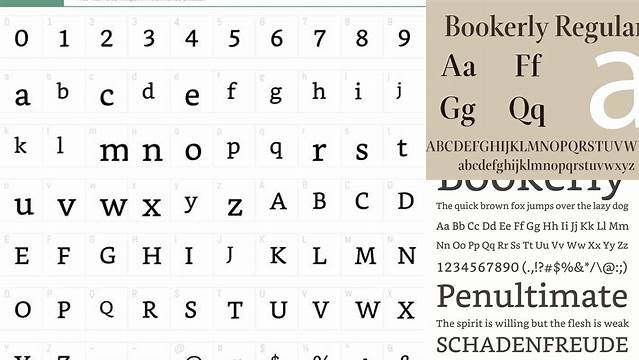
Bookerly Font, a typeface designed for optimal readability, especially for extended reading, has gained significant popularity among readers. This comprehensive guide provides everything you need to know about the Bookerly TTF font, including its history, features, how to download it for free, and its diverse applications. Whether you're a designer, writer, or simply a font enthusiast, this article will equip you with the knowledge to utilize Bookerly effectively. We'll delve into why Bookerly is a preferred choice, explore its design characteristics, and guide you through the process of obtaining and installing this versatile font on your devices. So, if you're looking to enhance your reading experience or create visually appealing content, stick around. Let’s dive in!
What is the Bookerly Font?
Bookerly is a custom typeface created by Dalton Maag and initially used by Amazon for its Kindle devices. The primary goal behind its design was to create a font optimized for readability on screens, mimicking the comfortable feel of reading a physical book. The design of Bookerly prioritizes clarity, legibility, and an enjoyable reading experience. This font is particularly well-suited for long-form text, making it a favorite among ebook readers, bloggers, and anyone who values a seamless reading flow. The curves, spacing, and overall design of Bookerly are carefully crafted to reduce eye strain, ensuring readers can immerse themselves in the content without unnecessary visual fatigue. This focus on the user experience sets Bookerly apart from many other fonts, making it a standout choice for digital reading platforms and various print materials. When we look at the specifics, you’ll find the typeface’s character set is designed to provide excellent clarity at smaller sizes, which is crucial for displaying text on the small screens of e-readers and mobile devices. Moreover, the font’s weight and proportions are carefully balanced to enhance readability across a range of screen resolutions and print qualities. This attention to detail is a testament to the thoughtfulness that went into creating Bookerly, resulting in a font that not only looks good but also significantly enhances the reading experience. For those of us spending hours reading on screens, this is a real game-changer!
Design Characteristics and Features
Bookerly's design incorporates several key features that contribute to its exceptional readability. Firstly, the font features a generous x-height, meaning the lowercase letters are relatively tall compared to the uppercase letters. This design characteristic makes the characters more distinguishable, particularly in smaller sizes, reducing the chances of misreading words. Secondly, the typeface boasts open apertures, referring to the open spaces within and between the strokes of the letters. These open spaces improve letter recognition and prevent the characters from appearing cramped or blurred, especially when viewed on digital screens. Additionally, the font's subtle serifs, the small decorative strokes at the ends of the letters, enhance the visual flow of text, guiding the reader's eye smoothly across the page. The curves are elegantly designed to add a touch of sophistication while ensuring that the font remains highly legible. The design’s attention to detail, from the balance of its stroke weights to the spacing between letters, is all geared towards optimizing the reading experience. The features also include a variety of weights and styles, offering versatility for different uses. Whether you're creating a document, designing a website, or crafting an e-book, Bookerly provides the flexibility to meet your needs. From bold headlines to regular body text, Bookerly can adapt to any use, all while preserving its core characteristics of readability and visual appeal. This adaptability is what makes it an ideal choice for so many applications.
Why Choose Bookerly?
Choosing Bookerly offers several advantages, making it a preferred choice for both digital and print media. The primary benefit is its superior readability, which is especially crucial for extended reading sessions. The design reduces eye strain, making it an excellent choice for ebooks, articles, and any content where readers spend considerable time. Furthermore, its clean, modern aesthetic adds a touch of elegance to any project. The balanced design ensures that text appears professional and visually appealing without being overly distracting. The versatility of Bookerly also allows it to be used in various applications, from websites and documents to marketing materials and branding. It’s suitable for both body text and headlines, making it a versatile asset in any designer’s toolkit. The font’s ability to adapt to different formats ensures a cohesive and consistent look across all platforms. For writers, editors, and designers, Bookerly offers a seamless reading experience that promotes user engagement and satisfaction. In a world where visual appeal is essential, Bookerly helps to create a positive impression and enhance the overall quality of your content. Ultimately, choosing Bookerly means investing in a font that is both functional and stylish, ensuring your content is not only readable but also visually engaging. Who doesn’t want a font that makes reading feel good?